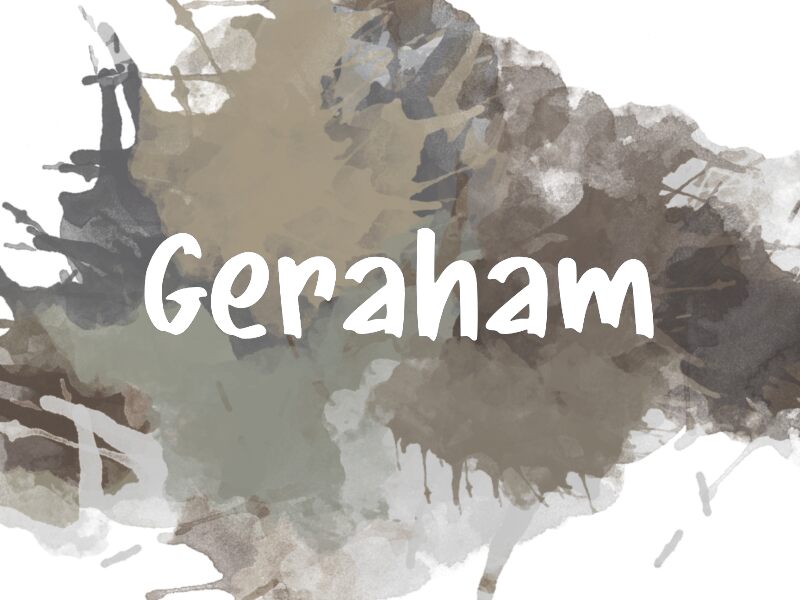
Geraham
Geraham is a striking, brush-style font that commands attention with its bold, expressive strokes. Designed by wep, this captivating typeface exudes a sense of organic fluidity, blending the refined elegance of calligraphy with a modern, dynamic flair.
The dramatic, sweeping lines convey a palpable energy, lending themselves seamlessly to impactful display text, attention-grabbing headlines, and dynamic branding applications. Geraham's versatility shines through, equally suited for vibrant editorial designs, artful packaging, and eye-catching digital interfaces.
This font's distinctive character and emotive quality make it a compelling choice for projects seeking to inject a touch of artistry, passion, and visual intrigue into the typographic landscape.